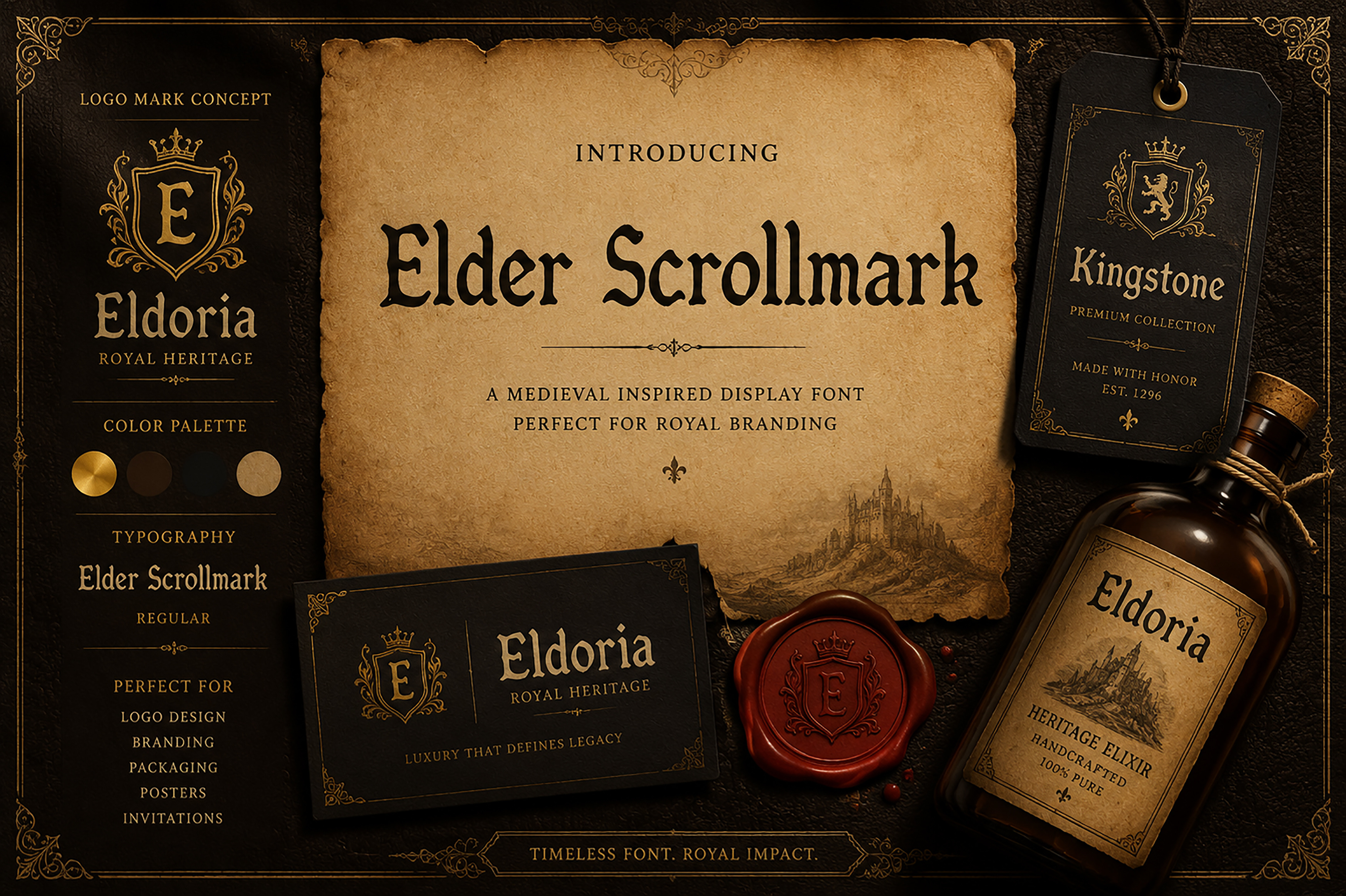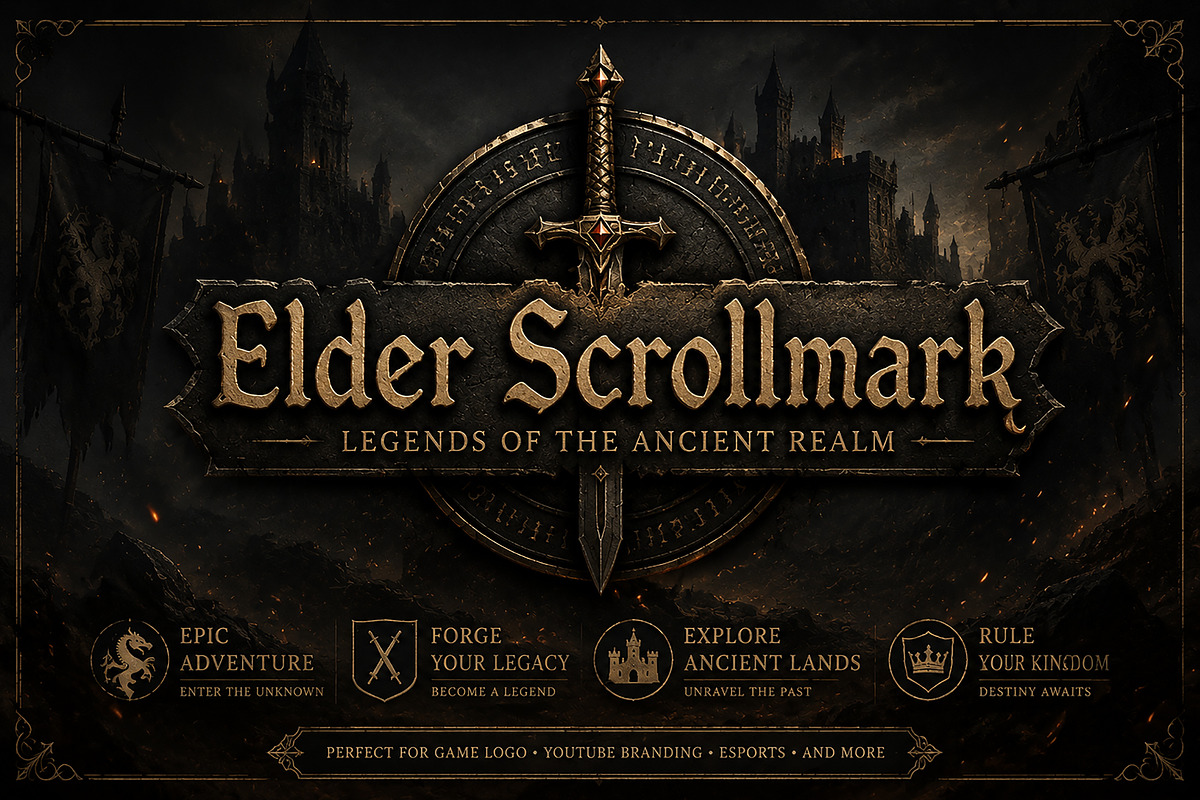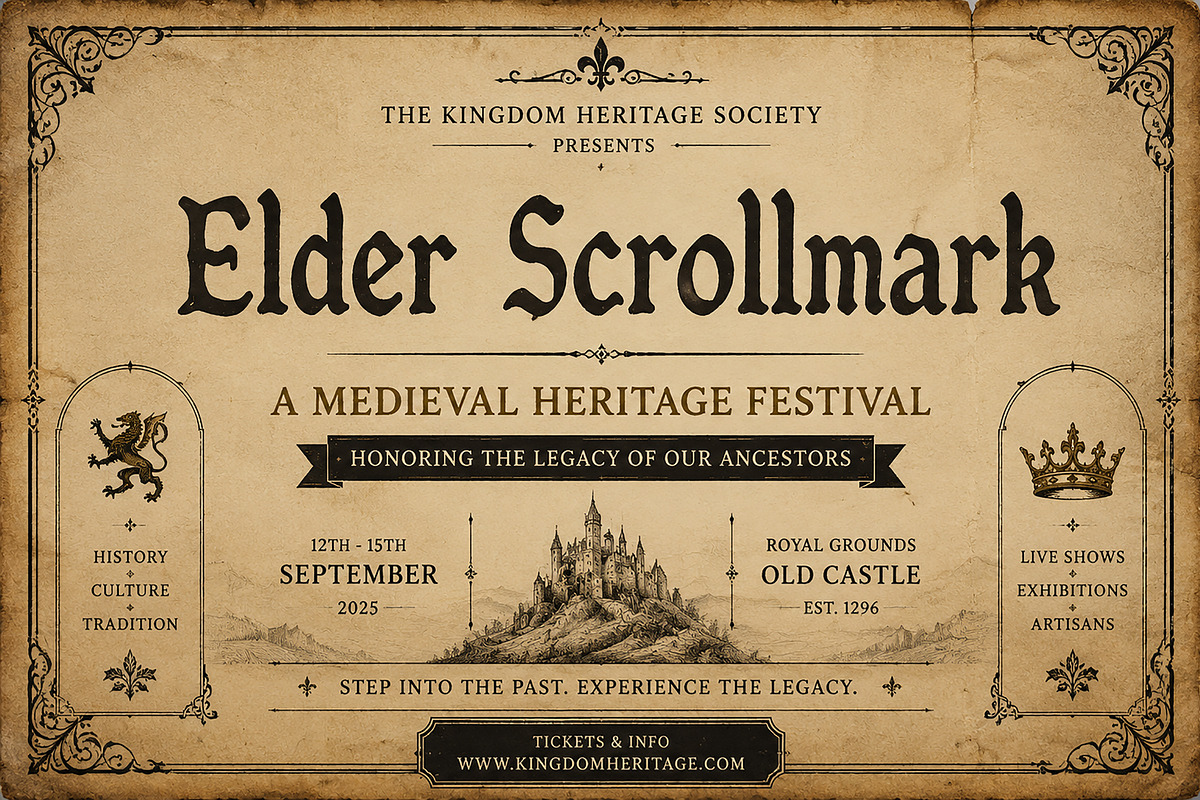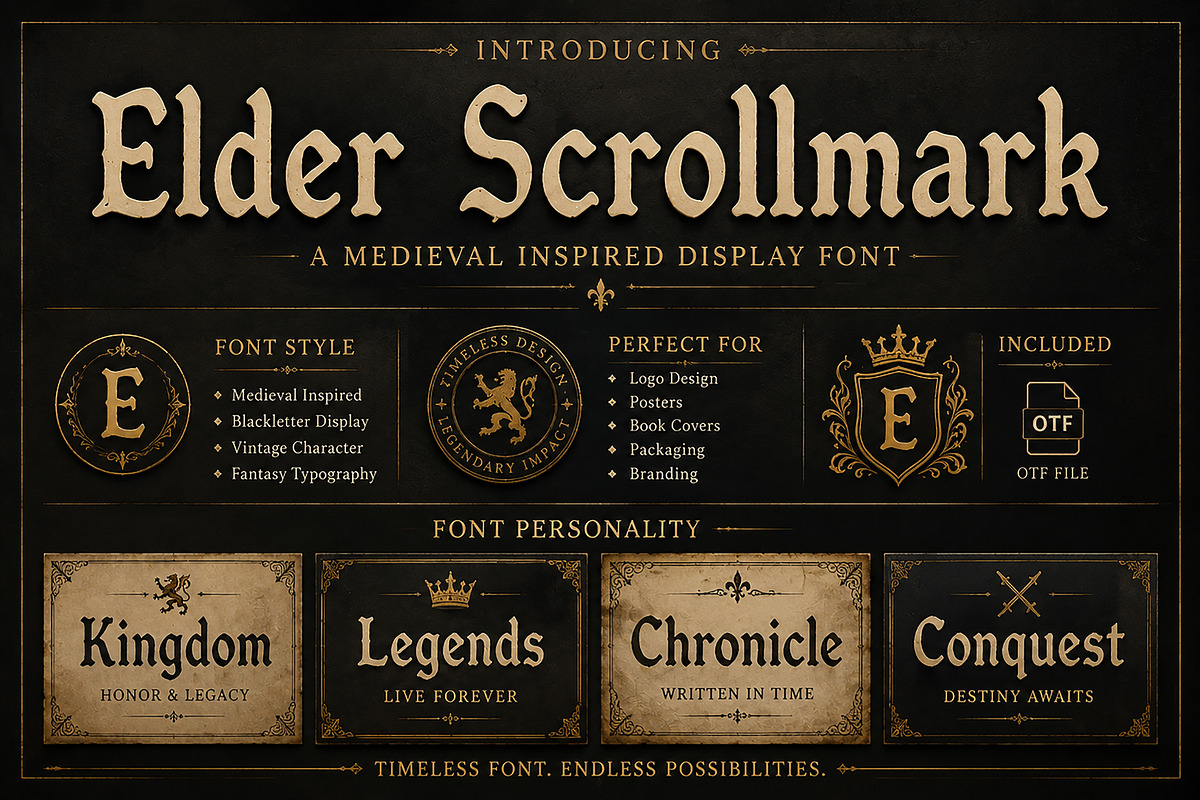
Elder Scrollmark – Blackletter Font
Elder Scrollmark – Medieval Blackletter Display Font
Elder Scrollmark — A Medieval Blackletter Display Font Inspired by Ancient Scrolls, Fantasy Kingdoms, and Timeless Legends.
Elder Scrollmark is a powerful medieval-inspired blackletter display font crafted with a strong historical character and fantasy atmosphere. Designed with bold gothic letterforms, classic proportions, and an ancient manuscript feel, this typeface brings a timeless identity to your creative projects.
Inspired by medieval scrolls, ancient kingdoms, fantasy worlds, and vintage typography, Elder Scrollmark is perfect for designers who want to create a strong visual impact with a legendary and authentic style.
Whether you are designing a fantasy logo, book cover, poster, branding project, packaging, or apparel artwork, Elder Scrollmark adds a unique medieval personality and premium handcrafted feeling to every design.
✔ Medieval Inspired Blackletter Style
✔ Bold Display Typeface
✔ Gothic & Vintage Character
✔ Fantasy Typography Style
✔ Strong Visual Identity
✔ High Impact Letterforms
✔ Perfect for Premium Branding Projects
Brand Identity
Fantasy Projects
Movie Posters
Game Titles
Apparel & Merchandise
Tattoo Artwork
Album Covers
Historical Designs